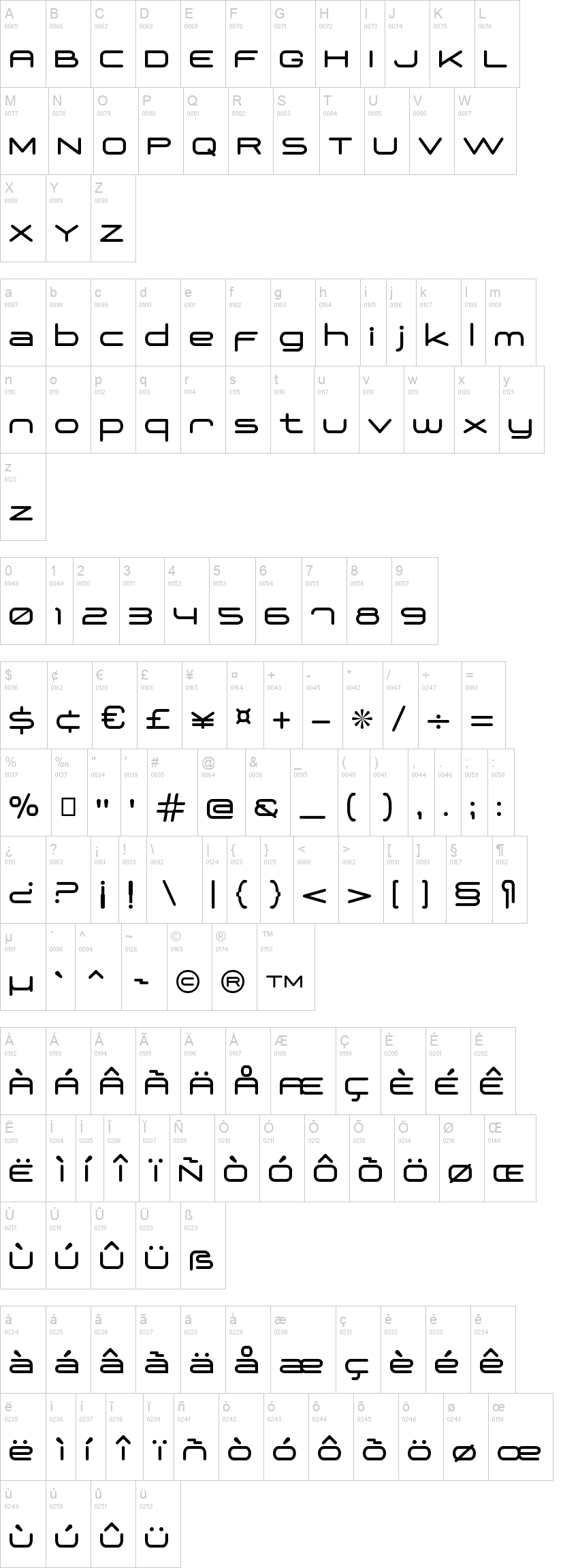
Vezla Italica.ttfNote of the authorNew version Vezla 1.2 - Modified the capital "W" making it wider to make it more visual and elegant, plus some kerning adjustments.